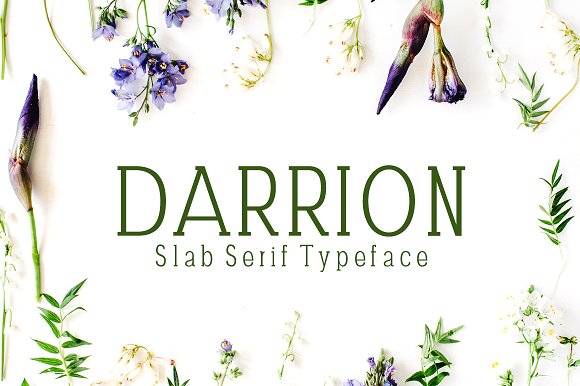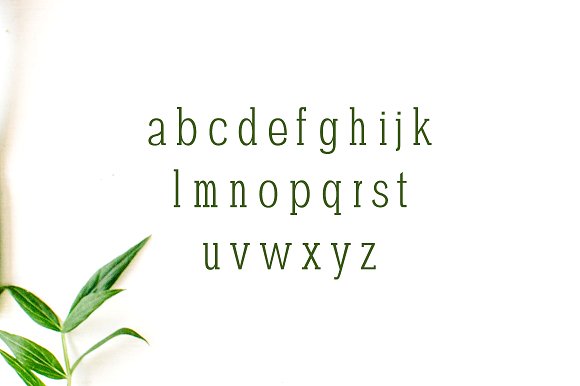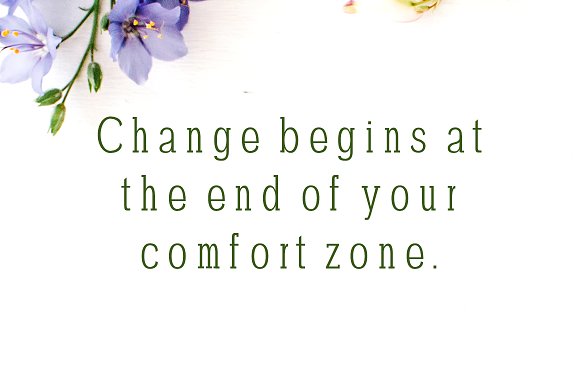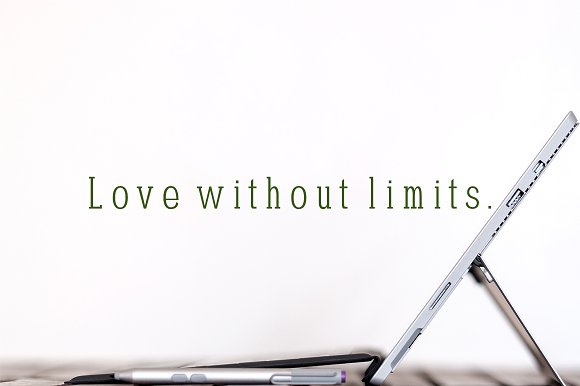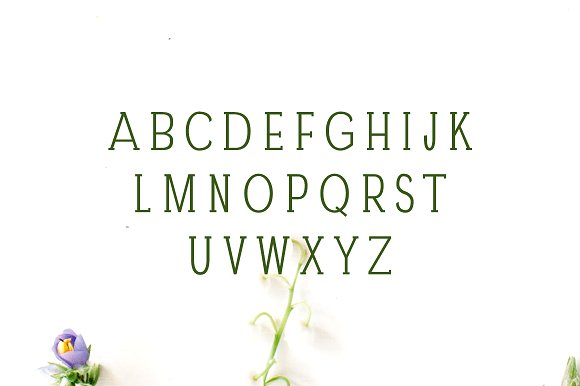
Darrion Slab Serif Typeface
Darrion Slab Serif Font is a set of 5 weights and it is good for making creative displays and it has slab serif font. It’s a lovely and unique slab serif font in our store, allowing you to make each word look completely stylish!
It Suits best for modern / clean designs, logos, headlines, decoration, banners and templates etc. It looks gorgeous in all caps with a wide-set spacing if you want to try a classy look, or beautiful on its own in capital and lowercase letters for something completely timeless.